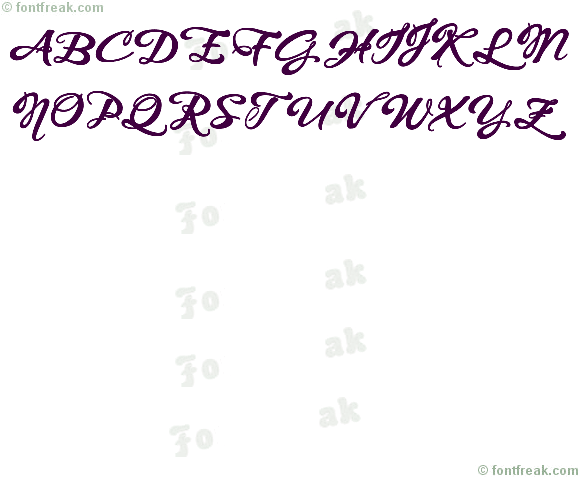
WHISPERS CALLIGRAPHY_DEMO_sinuous_BOLD
About WHISPERS CALLIGRAPHY_DEMO_sinuous_BOLD
The WHISPERS CALLIGRAPHY_DEMO_sinuous_BOLD font is a captivating script typeface that embodies elegance and sophistication. Crafted by Fonts and Fashion, this font showcases a unique blend of flowing curves and bold strokes, making it an ideal choice for various creative projects. The visual characteristics of this font include a moderate stroke weight with noticeable contrast, which enhances its readability while maintaining an artistic flair. The decorative elements, including swirls and loops, add a touch of whimsy, making it suitable for designs requiring a personal touch.
This font is particularly well-suited for wedding invitations, where its graceful lines can beautifully convey romance and celebration. It also shines on restaurant menus, adding a sophisticated charm that elevates the dining experience. Movie posters can benefit from the striking presence of WHISPERS CALLIGRAPHY_DEMO_sinuous_BOLD, drawing attention and evoking emotion. Additionally, it can be a fantastic choice for personal branding projects, such as logos or social media graphics, appealing to small business owners looking to make a memorable impression.
Target audiences for this font include graphic designers seeking to enhance their creative toolkit, small business owners wanting to stand out in a competitive market, and content creators looking for an eye-catching typeface that resonates with their audience.
In conclusion, the WHISPERS CALLIGRAPHY_DEMO_sinuous_BOLD font free download offers a unique blend of elegance and modern appeal, making it a versatile choice for a variety of applications. Its striking design and artistic flair set it apart, ensuring that any project utilizing this font will leave a lasting impression.